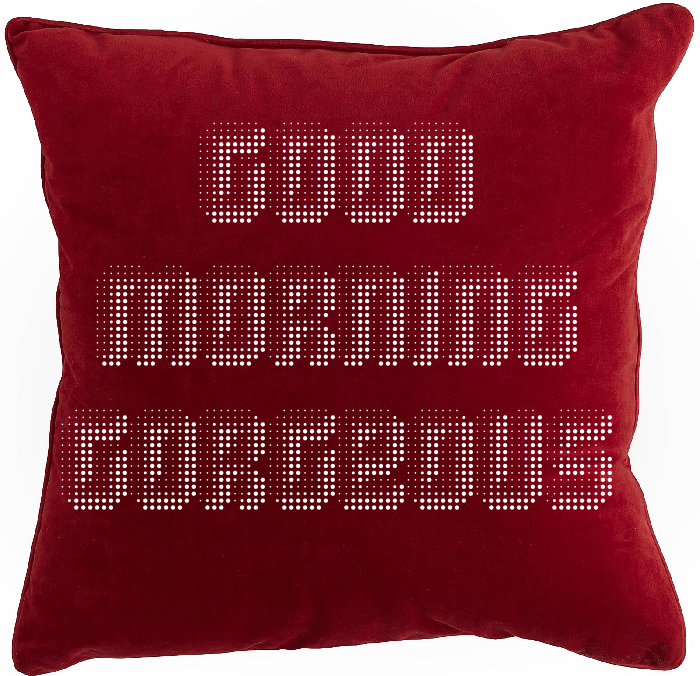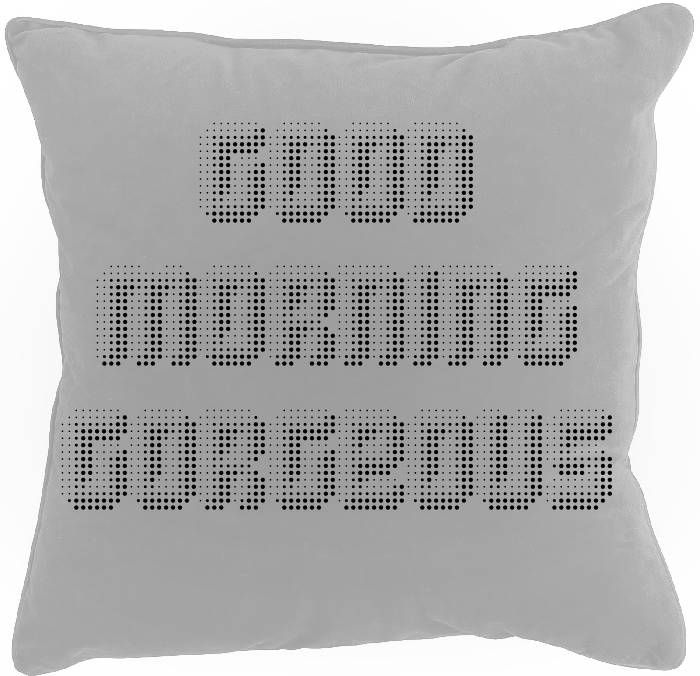
And this one!!
What a surprising entry! The depth in the shading is fabulous.
@four - Wonderful half-tone effect -- to you AND @12Me21 !
Very nice shading.
Nice concept! You should've used the hearts for the sample ;)
I really, REALLY like this, four! A fantastic job! Cheers!